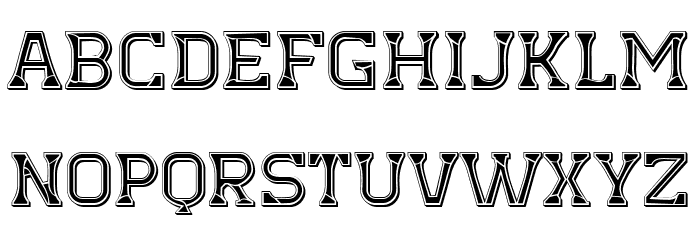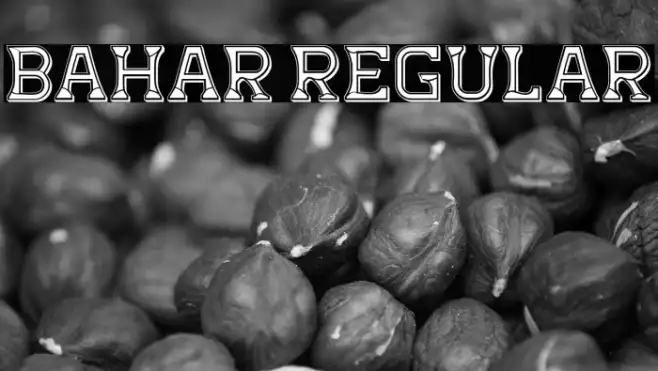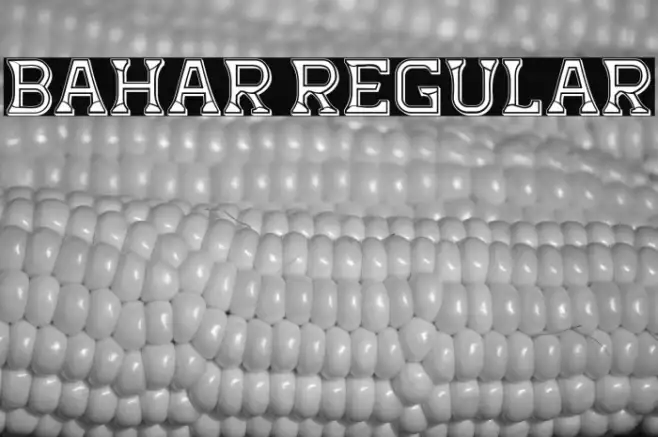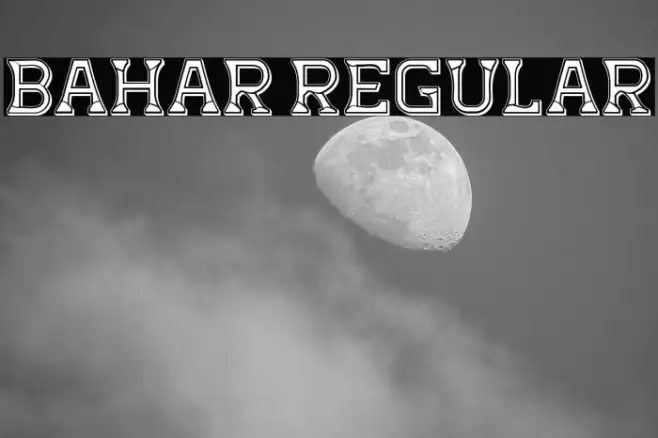
Bahar Regular Font
This font features a bold, decorative style with a strong presence. The characters are outlined with a double line, creating a shadow effect that adds depth and dimension. The uppercase letters are uniform in height, with sharp angles and clean lines that give a modern yet classic feel. The font is highly legible, making it suitable for various design applications. Its unique style is eye-catching and can add a distinctive touch to any project.
A bold, decorative font with a double-line shadow effect.
- Proposed Projects: Ideal for posters, logos, headlines, and branding materials where a strong visual impact is desired.